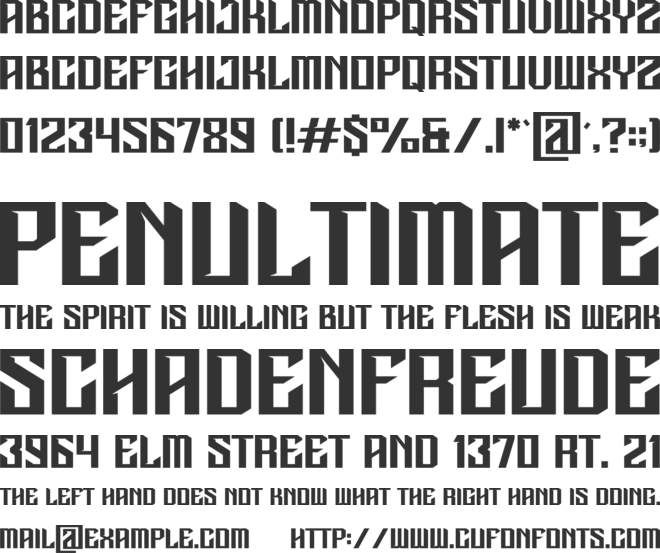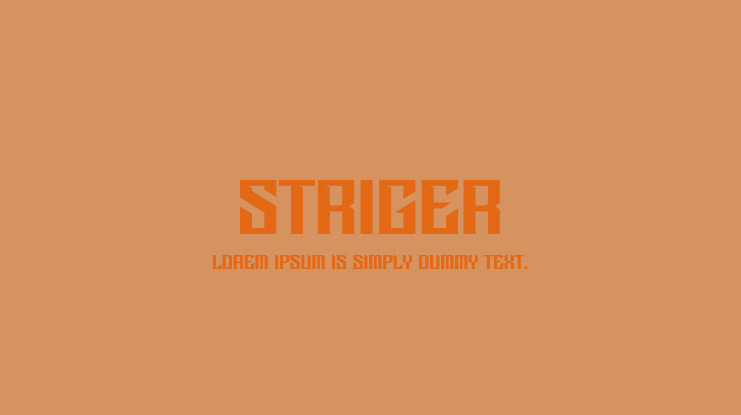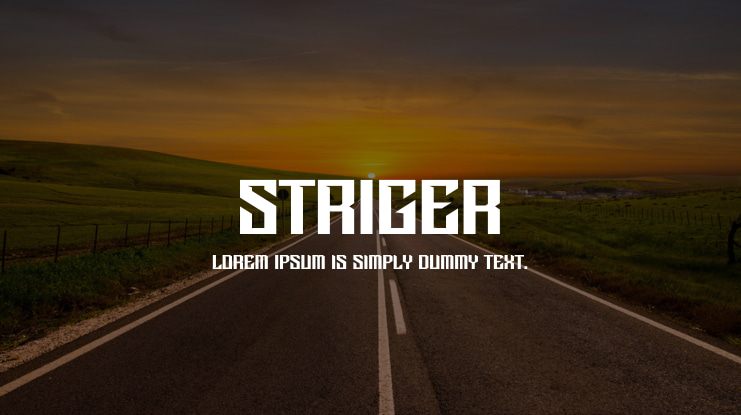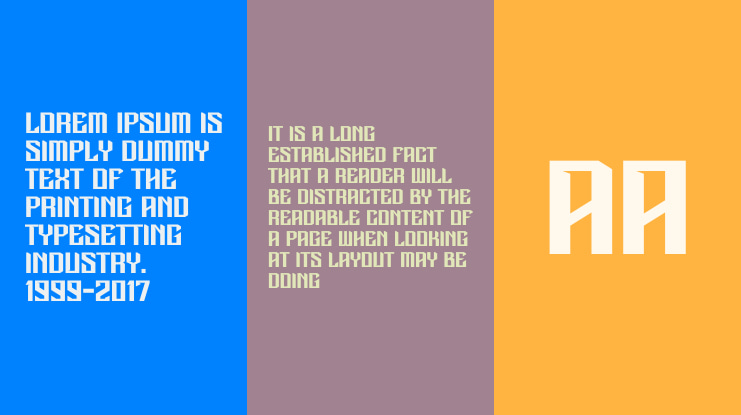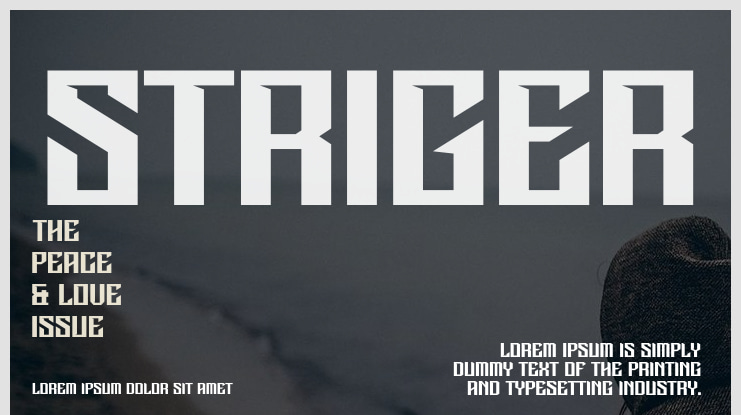
STRIGER Font
Striger - Display Font
Striger Display Font is perfect for various design purposes such as logos, posters, sports themes, modern advertising design, product labels, t-shirts, YouTube thumbnails/covers, poster quotes, editorial design, book/cover titles, websites/blogs, social media posts, packaging designs, and more.